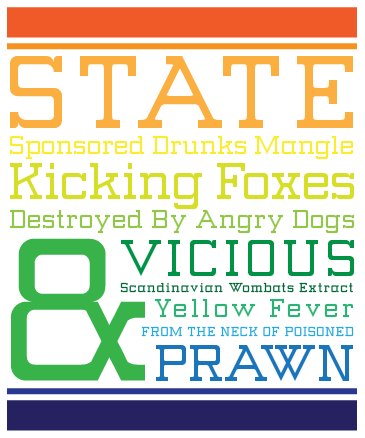
very beautiful, especially "K" and about ALL small cabs!
i dont know about your "9" but hey... that font was worth it
Thanks for the comment Kix. I oscillate on the 9 and 6. One moment I am their complete champion and life companion but in the next breadth I find them vile and laughable. I think I'll let them sit for a bit and see how I feel about them in a day or two.
maybe i had exacly that "thinking-time" and now i feel like they are beautiful and fit to the font...
Realy nice i like in particular x & k